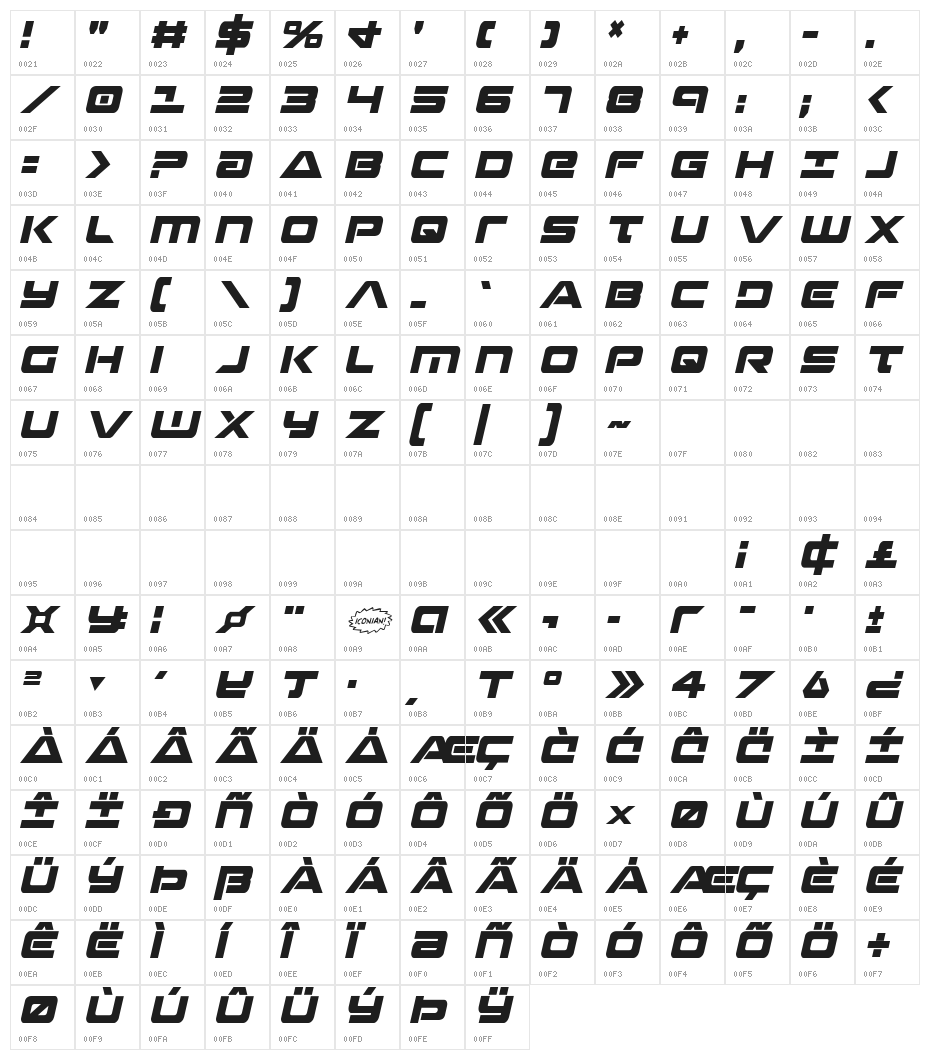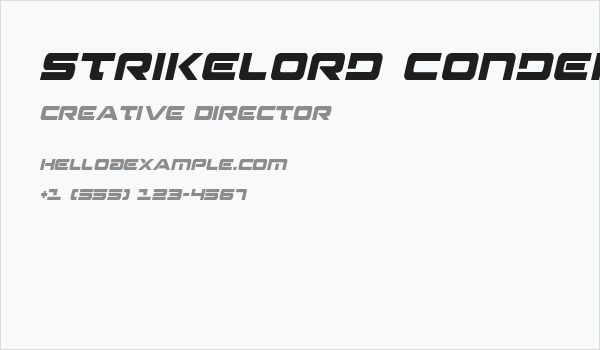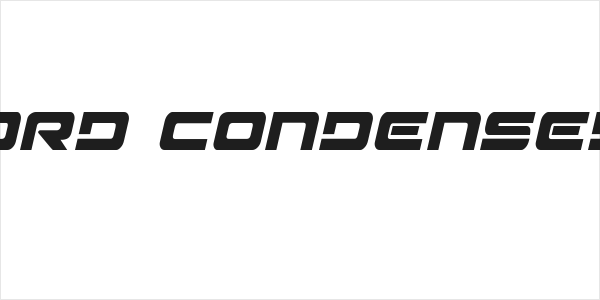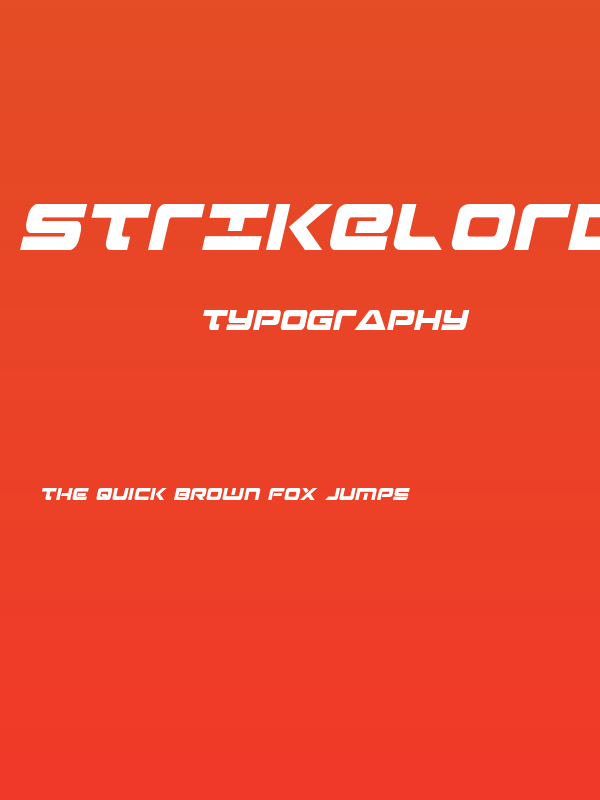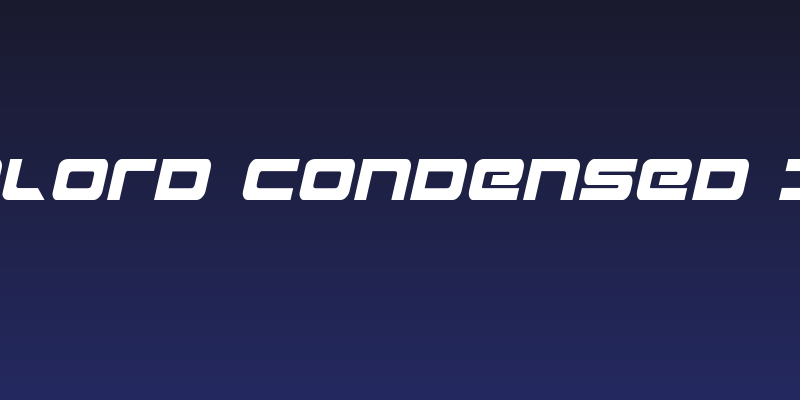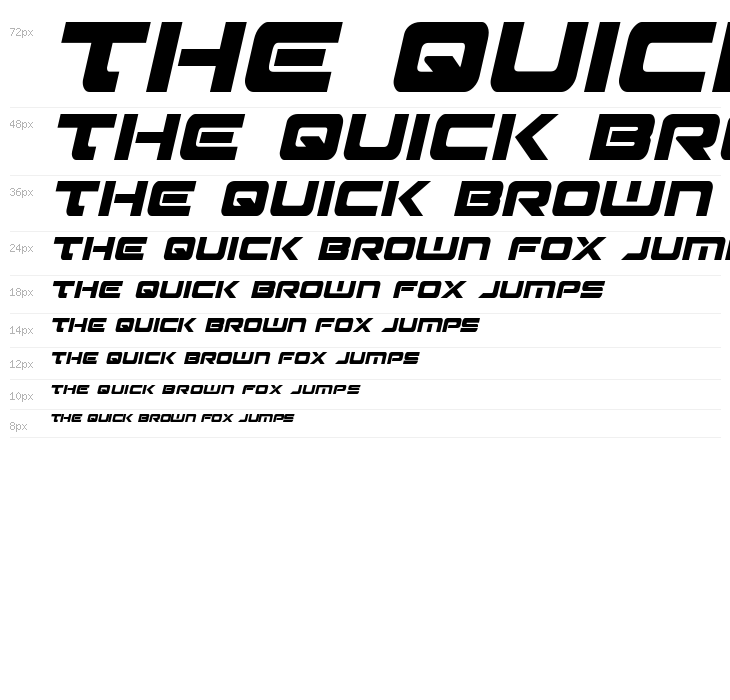
Strikelord Condensed Italic Font
Strikelord Condensed Italic Description
This font features a bold, futuristic design with a condensed and italicized style. The characters are angular and geometric, giving a sense of speed and modernity. The uppercase and lowercase letters maintain a consistent slant, enhancing the italic effect. The numbers and special characters follow the same design principles, ensuring uniformity across all glyphs. The sharp edges and clean lines make it suitable for dynamic and impactful visual projects.
| Proposed Projects | Ideal for sci-fi themed designs, video game titles, sports branding, and tech-related logos. |